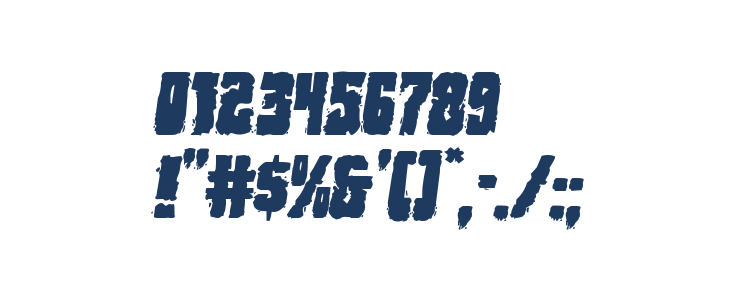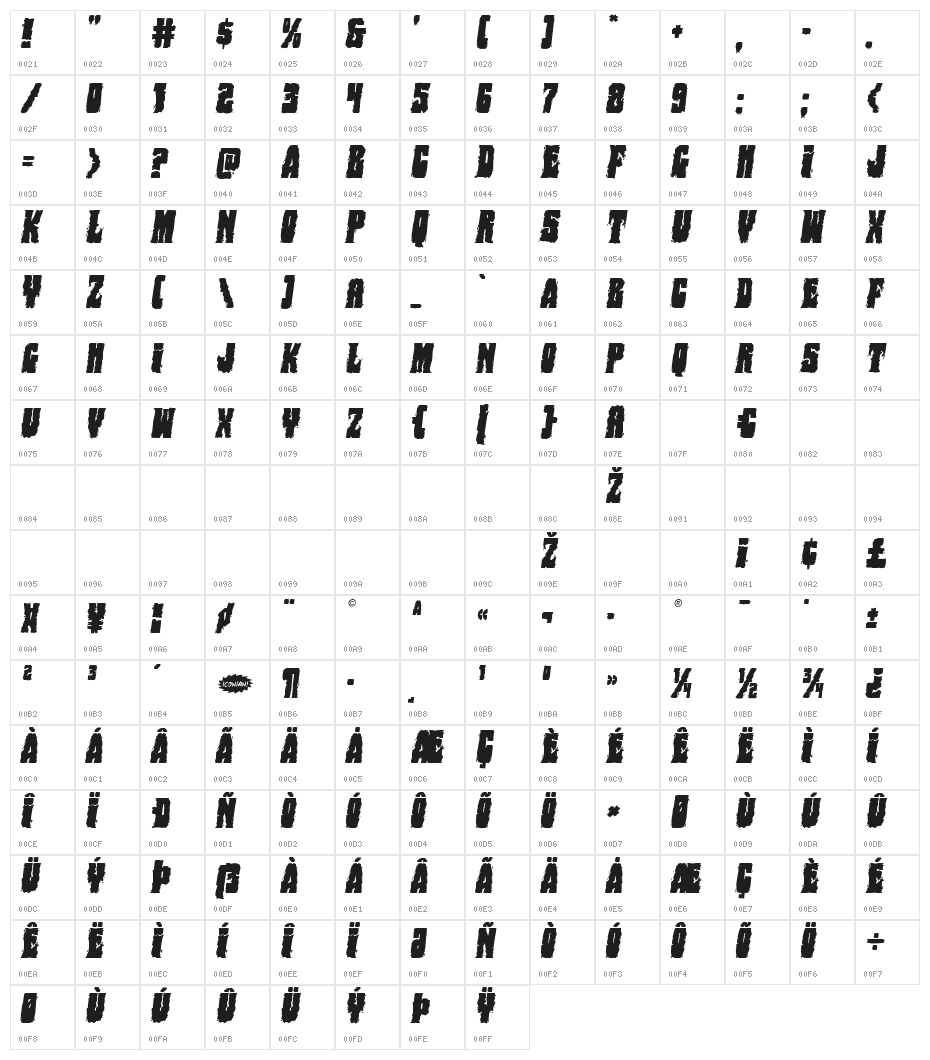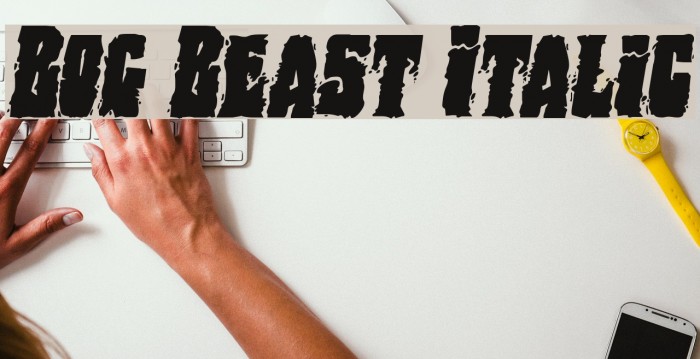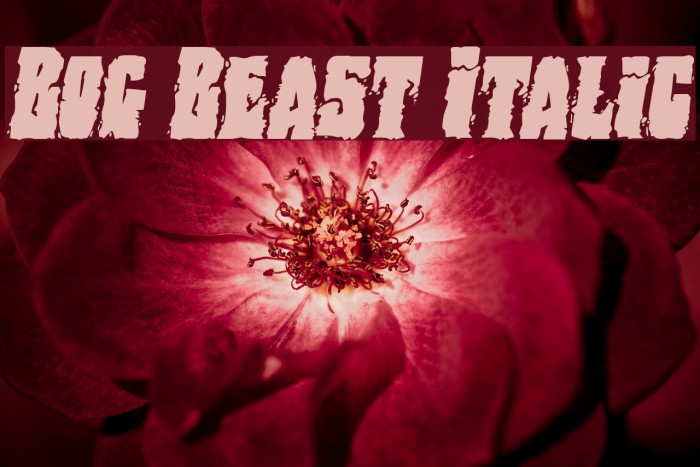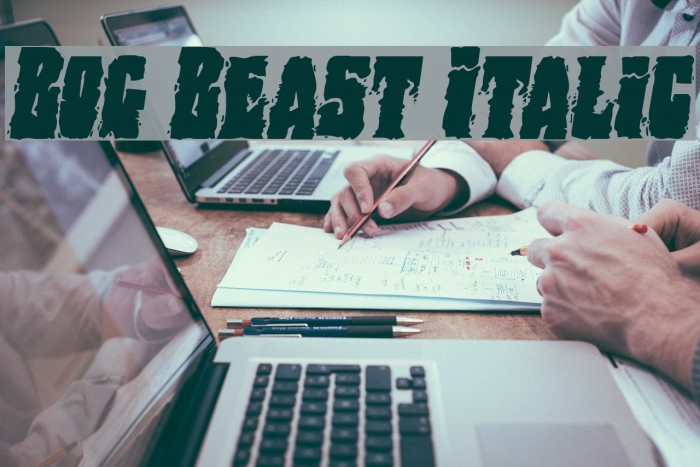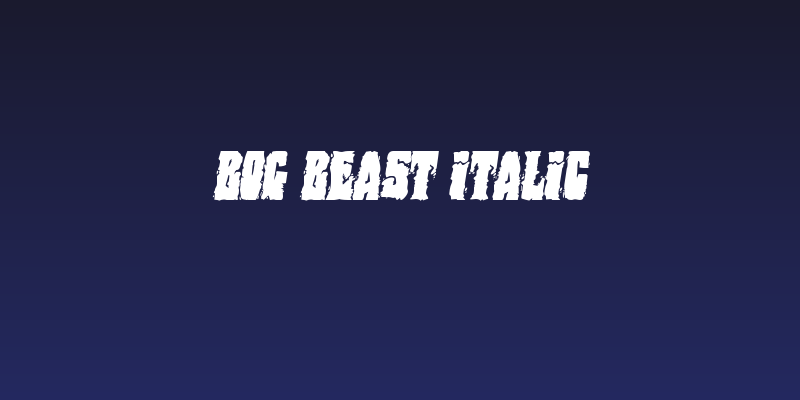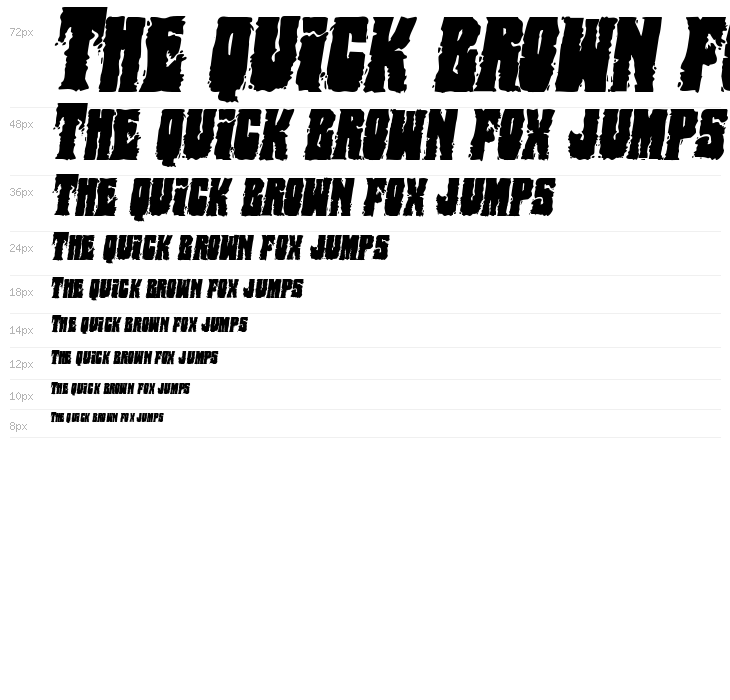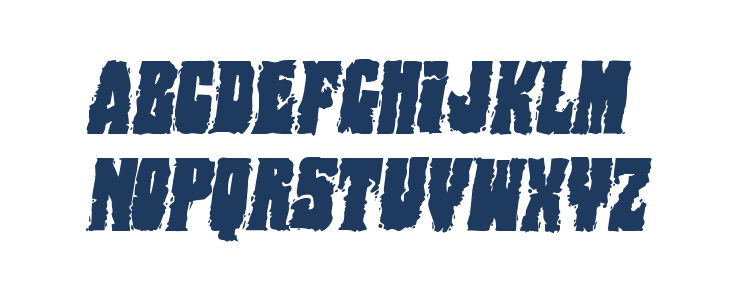
Bog Beast Italic Font
Bog Beast Italic Description
This font features a bold and rugged design, characterized by its distressed and jagged edges that give it a wild, untamed appearance. The letters are thick and heavy, with an uneven texture that suggests a hand-drawn or natural element. The uppercase and lowercase letters maintain a consistent style, with the uppercase being slightly more pronounced. Numbers and special characters follow the same aesthetic, ensuring a cohesive look across all text elements. This font's unique style makes it stand out, perfect for projects that require a bold statement.
Proposed ProjectsIdeal for horror-themed designs, adventure branding, outdoor event posters, and any project needing a bold, eye-catching typeface.